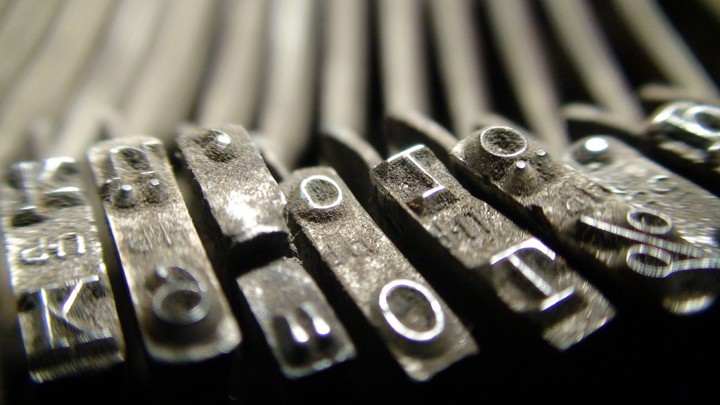
The Healthiest Typeface
A new study adds more support to the idea that the right font can help sway health behavior.
In a New York Times column in July 2012, the filmmaker Errol Morris took a few paragraphs to ponder the likelihood of death by asteroid.
“NASA issued reassuring public statements [after an asteroid flew close to Earth in 2011], but I’m not so sure,” he wrote. “It’s about the size of an aircraft carrier. Okay. That seems pretty big to me. Do you mean I shouldn’t worry about being hit by a meteor the size of an aircraft carrier?”
He then asked two questions of his readers: Did they agree, as the physicist David Deutsch put it, that—at least asteroid-wise—“we live in an era of unprecedented safety”? And how confident were they in their choice?
The column, which included a space at the end for readers to submit their answers, was titled, “Are You an Optimist or a Pessimist?” But in a follow-up article in the Times the next month, Morris made a confession: “My quiz wasn’t really a test of the optimism or pessimism of the reader,” he wrote. “It was a test of the effect of typefaces on truth.” Each time someone opened the original column, he revealed, the paragraph quoting Deutsch would appear in one of six random fonts, and the differences between them were statistically significant. People who had seen Deutsch’s statement of reassurance in Baskerville were the most likely to believe it and the most convinced of their choice; at the other end of the spectrum, those who had seen Comic Sans were both less likely to believe and less sure of their answers.
“Can we separate the form of writing from its content?” Morris continued, asking a question he had already started to answer.
New research shows that the answer may hold for healthcare as well as apocalyptic flying space debris. In a small study published last week in the journal Patient Education and Counseling, researchers from the University of Manchester and Leeds Beckett University in the U.K. gave a group of 71 volunteers (half pregnant women, half midwives) a sheet outlining a post-delivery maternal-health program. Participants were given the information in one of four formats: a simple heading and easy-to-read font (what the researchers called “double fluent”), a complex heading and difficult-to-read font (“double awkward”), simple title and difficult font, and complex title and easy font.
The volunteers were then asked to rate the program based on how appealing it was, how easy it was to understand, how risky it seemed, and how difficult it would be to follow.
Among the pregnant women, those whose sheets were printed in the easier font, regardless of title, perceived the program as easier to understand than those whose sheets were printed in a more difficult typeface. Those with the “double awkward” papers perceived it to be the most complicated of all. (The format of the information had no significant effect for the midwives, though. The researchers didn’t have any firm conclusions as to why, but hypothesized that their prior knowledge of the subject area may have made them less susceptible to differences in its presentation.)
Despite its small sample size, the paper is one more in a collection of studies pointing toward the same idea: When it comes to creating health information, it may be wise to consider style along with substance. A 2008 study published in the journal Psychological Science, for example, found that people were generally more willing to incorporate an exercise routine into their daily schedules when they read the instructions in a clearer font. In a 2007 study in the journal Annals of Pharmacotherapy, researchers from Harvard Medical School found that patients had a better understanding of how to take their prescription drugs, as well as benefits and possible side effects, when the labels included “larger fonts, lists, headers, and white space And other studies have evaluated the readability of everything from instructions for asthma management to information for cancer patients to guidelines for oral health in kids, arguing that the visuals of health information directly affect how well people adhere to what they read.
Health agencies, too, have tapped in to the potential power of font: The Centers for Disease Control and Prevention’s guide for health materials, called “Simply Put,” includes a section on choosing the right typeface. The Centers for Medicare and Medicaid Services has a similar guide, and so does the U.S. National Library of Medicine. All three contain similar, fairly intuitive advice: Use simple fonts (Times New Roman, Arial, Helvetica) that aren’t too big or too small (usually 12-point, though 14-point might be better for material geared towards seniors); serif letters, which the brain can process more quickly, should generally be used for body text; and avoid italics and underlining, which can be overwhelming to the eye.
But for all the details meticulously laid out by the CDC and others, the authors of the Psychological Science study summed it up best. “If it’s hard to read, it’s hard to do,” they wrote—whether that “it” is taking a pill, remembering to exercise, or trusting NASA to keep us safe from an asteroid that’s flying a little bit too close for comfort.